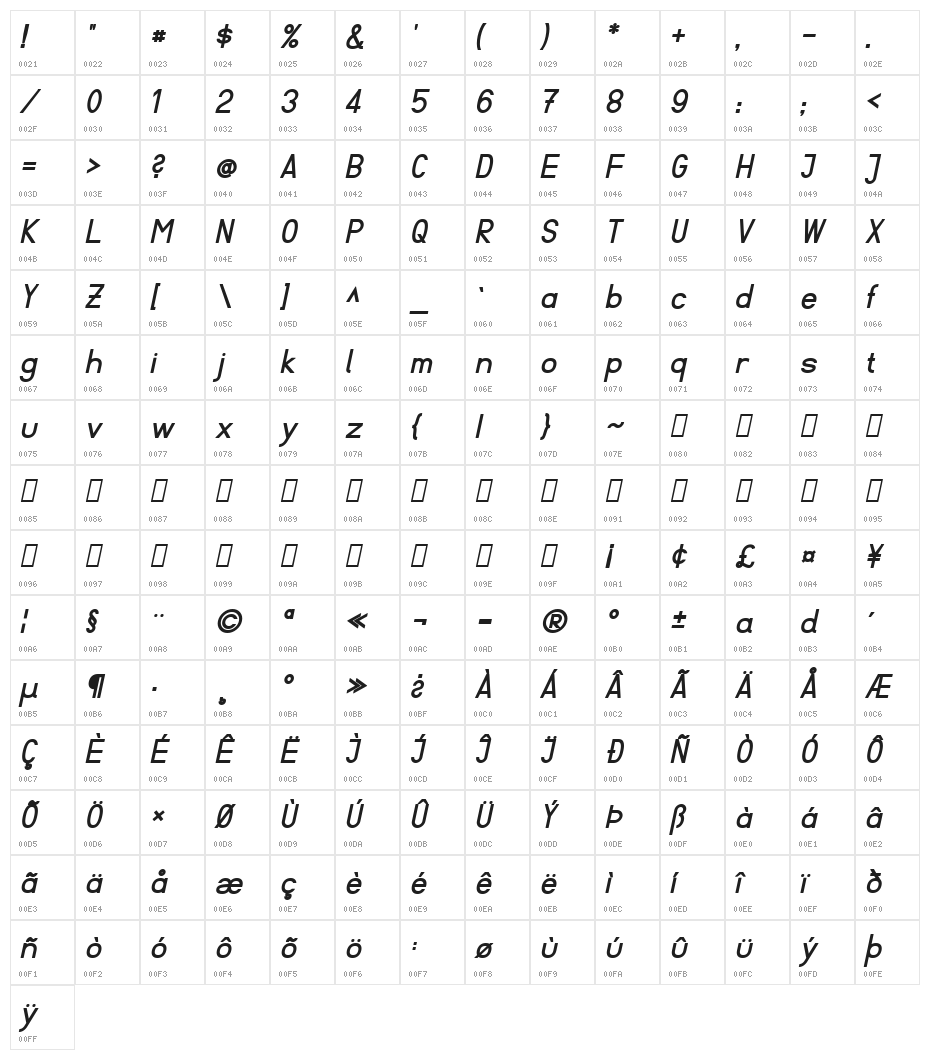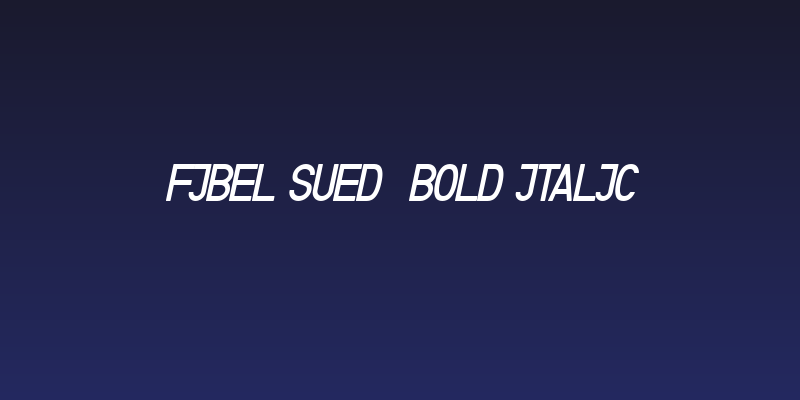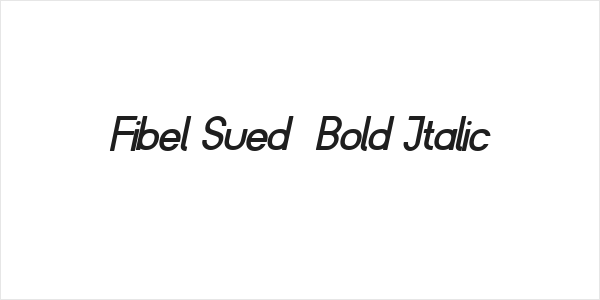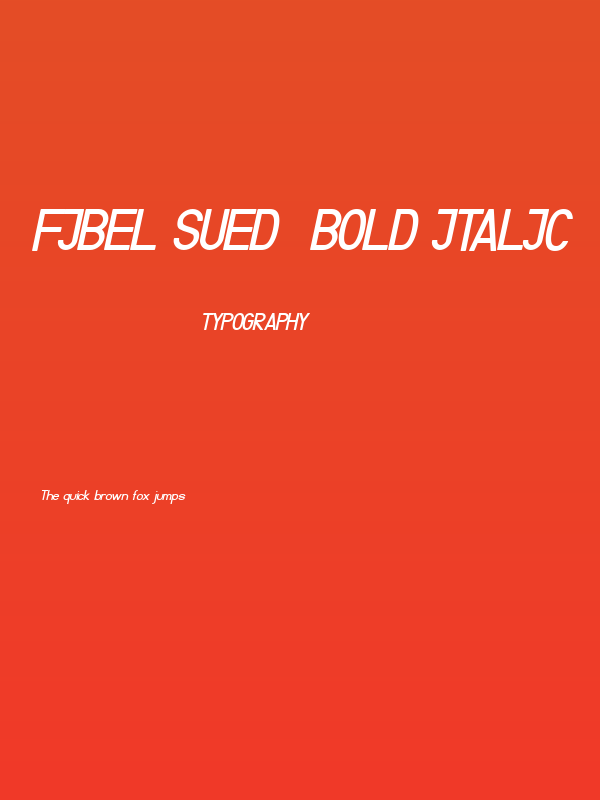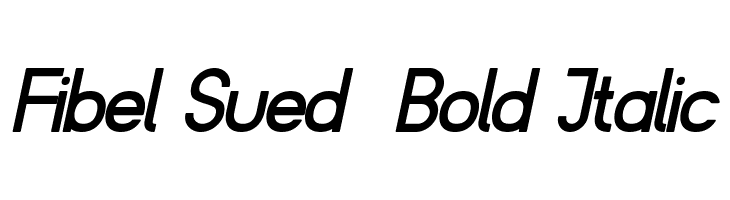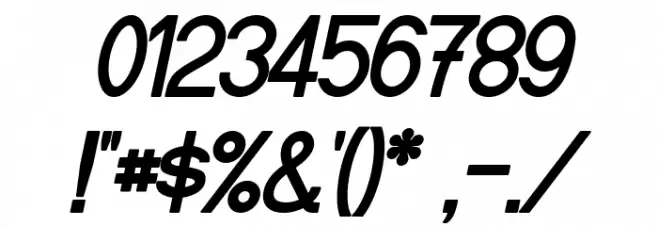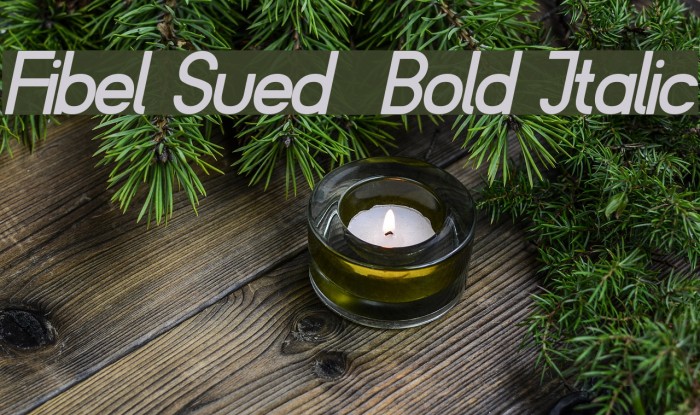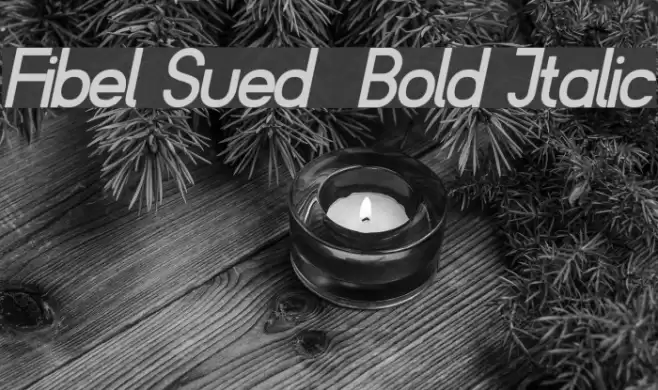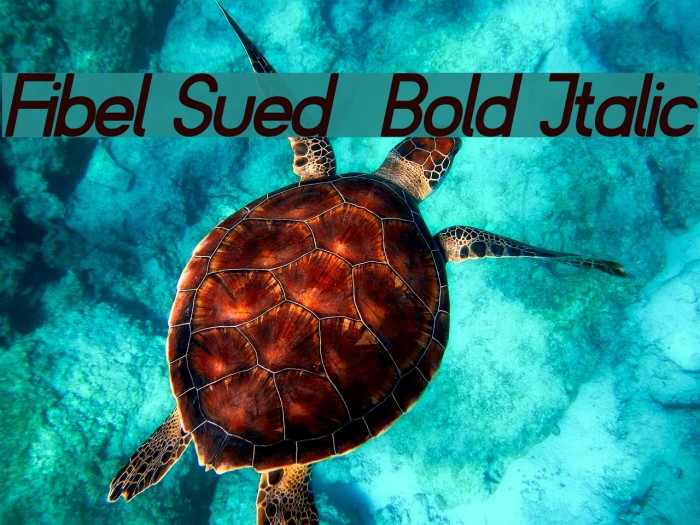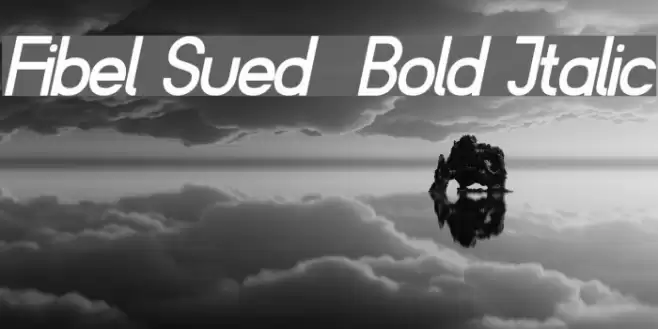
Fibel Sued Bold Italic Font
Fibel Sued Bold Italic Description
This font features a bold and italicized style, characterized by its slanted and dynamic appearance. The letters are slightly condensed, giving a sleek and modern look. The strokes are consistent in thickness, providing a uniform and clean aesthetic. The uppercase and lowercase letters maintain a harmonious balance, while the numerals and special characters are designed to complement the overall style. This font exudes a sense of energy and movement, making it suitable for various creative applications.
| Proposed Projects | Ideal for branding, advertising, and editorial design projects where a bold and modern statement is needed. |